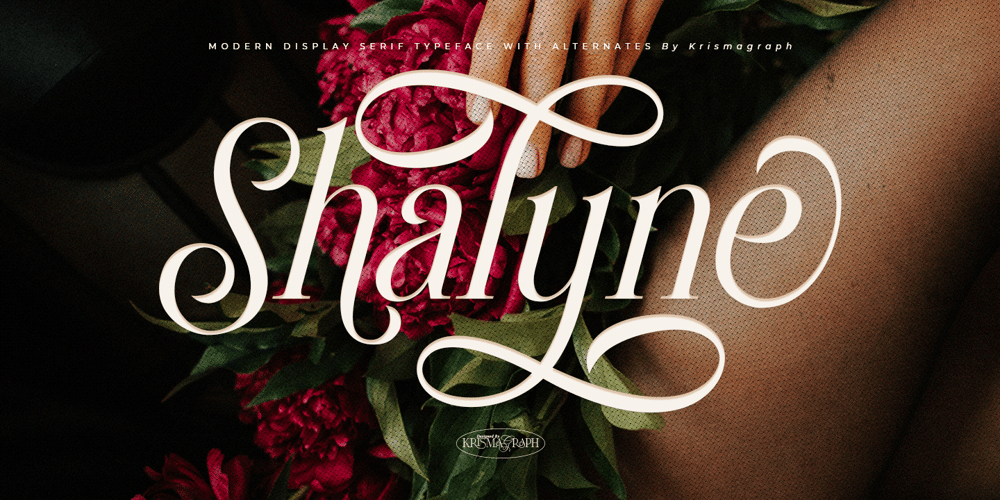
Shalyne Typeface Font Family was designed by Ratna Krismawati and published by Krismagraph. Shalyne Typeface contains 1 styles and family package options. Introducing the Shalyne Typeface. This luxury and timeless italic serif is perfectly designed with Ligature & Alternates . can make your lettering/logotype become more attractive. The clean and neat serif combined with the alternate & ligatures makes this font very attractive.This font is perfectly made to be applied especially in logos, and other various formal forms such as invitations, labels, logos, magazine headers, books, greeting/wedding cards, Clothing Branding, product packaging, fashion, makeup, quotes, stationery, novels, cutting, labels and advertising purpose.Features :uppercase & lowercasenumbers and punctuationmultilingualligaturesstylistic alternatesPUA encodedWe highly recommend using a program that supports OpenType features and Glyphs panels like many Adobe apps and Corel Draw so that you can see and access all Glyph variations.Thanks & Happy Designing!